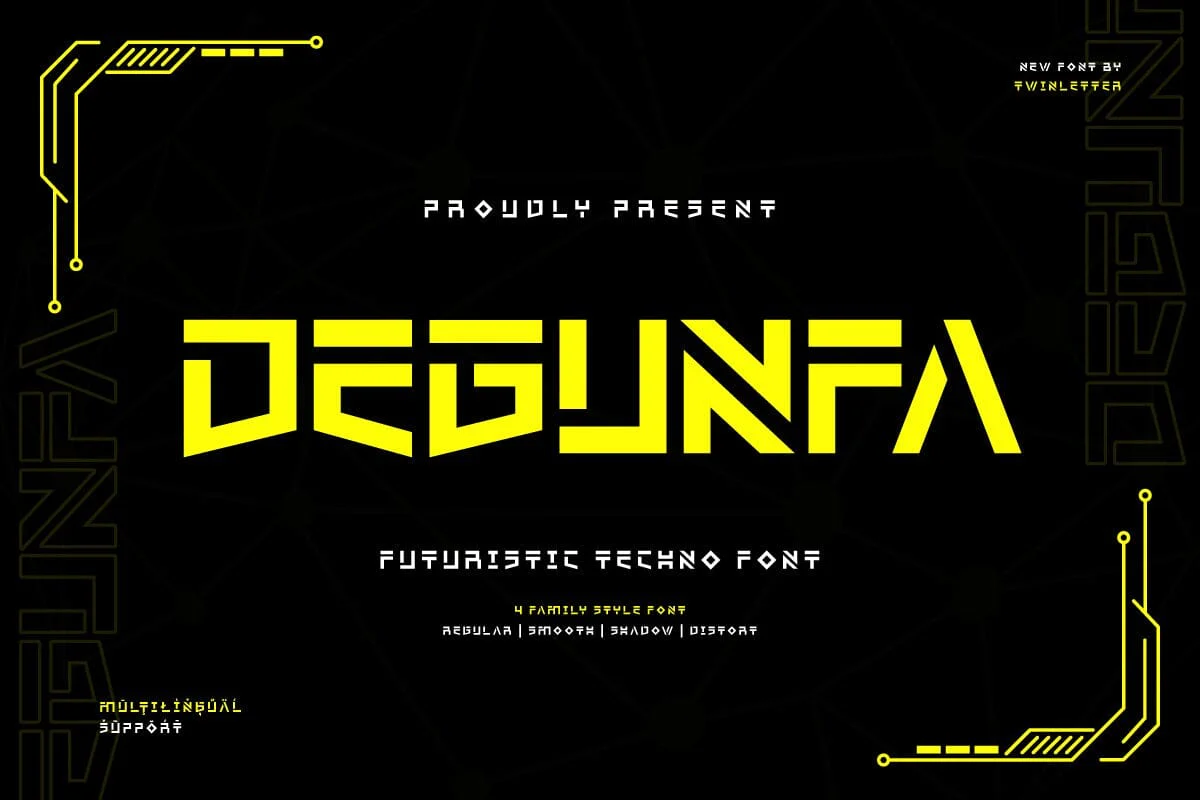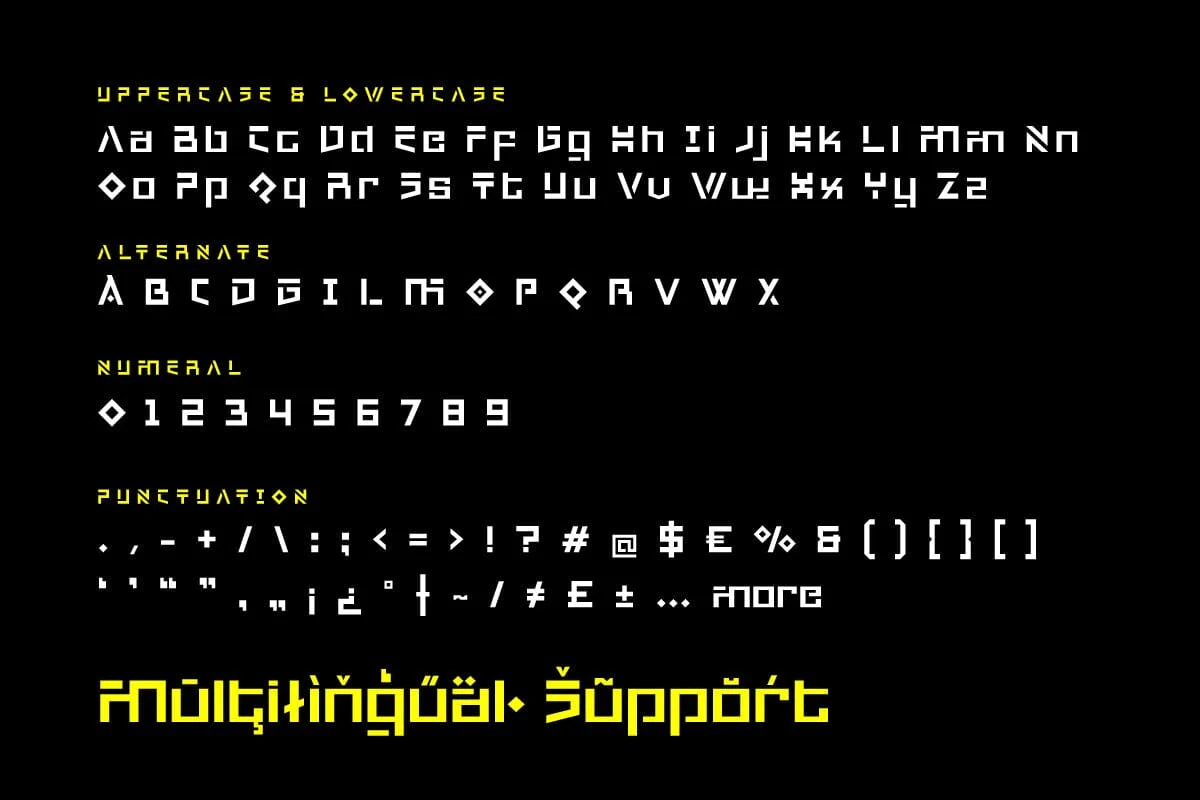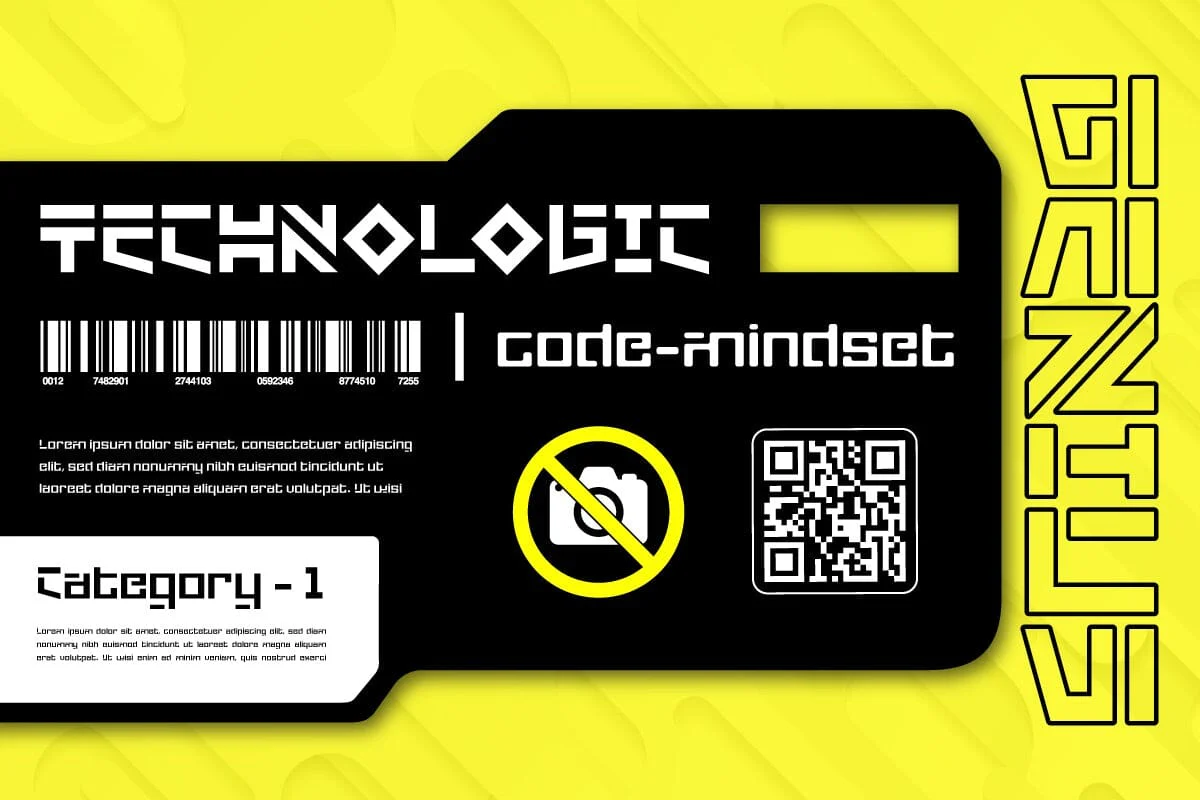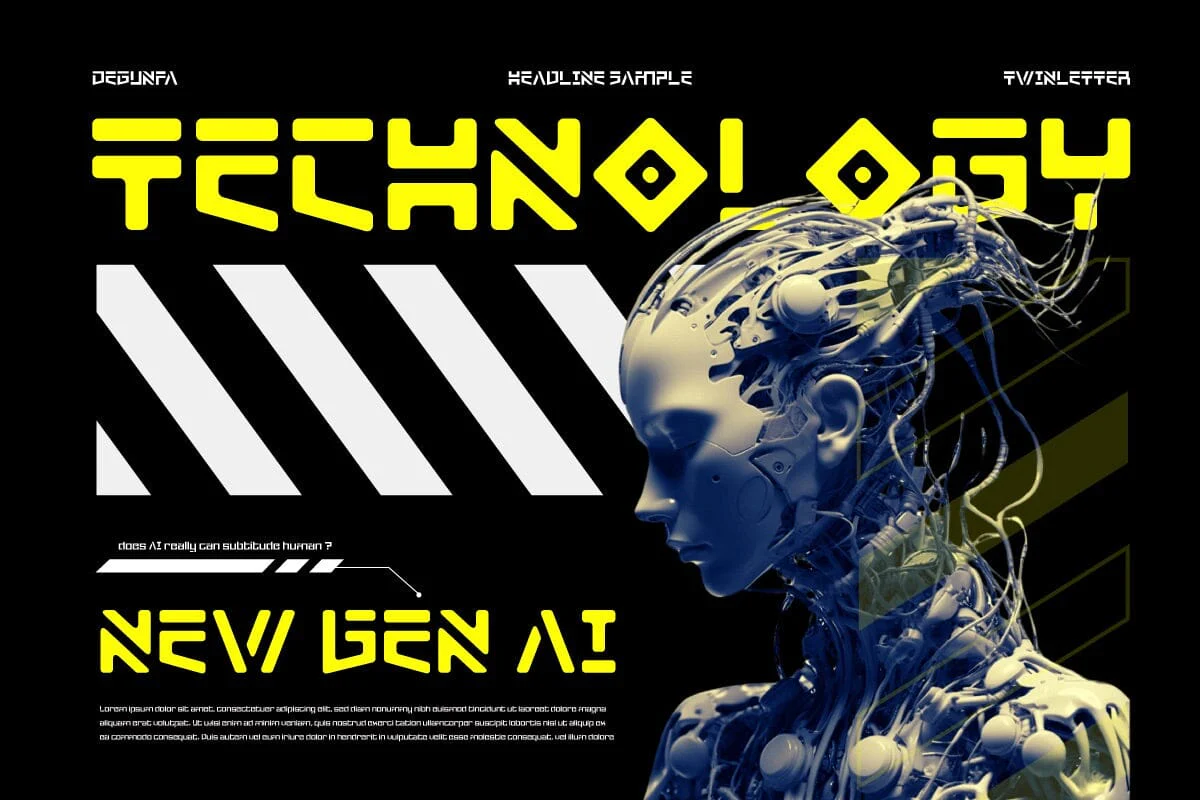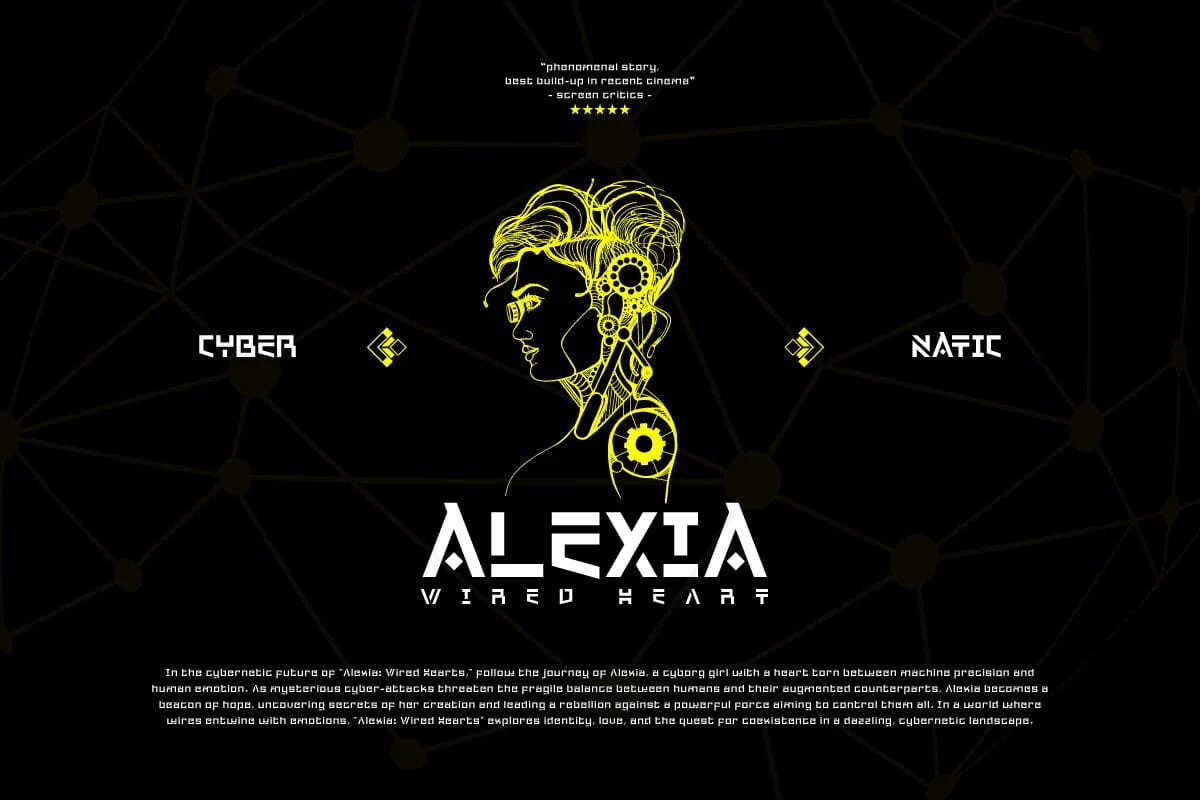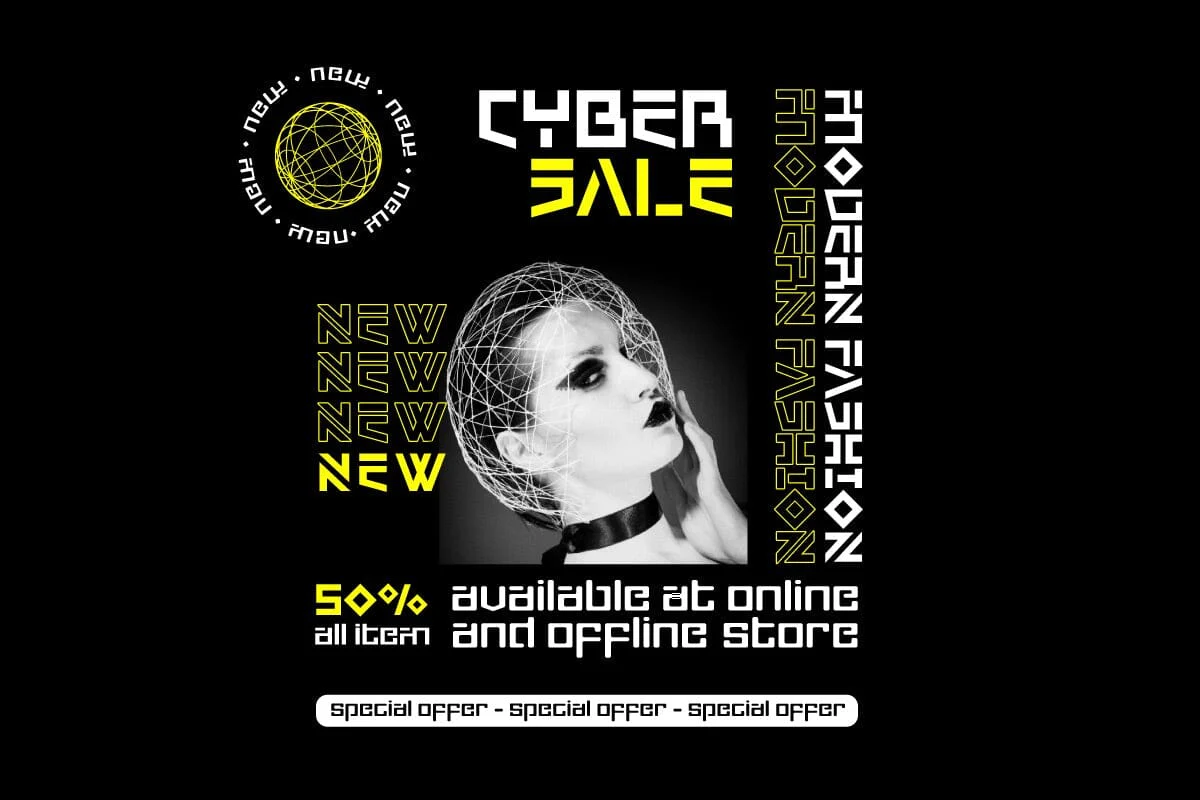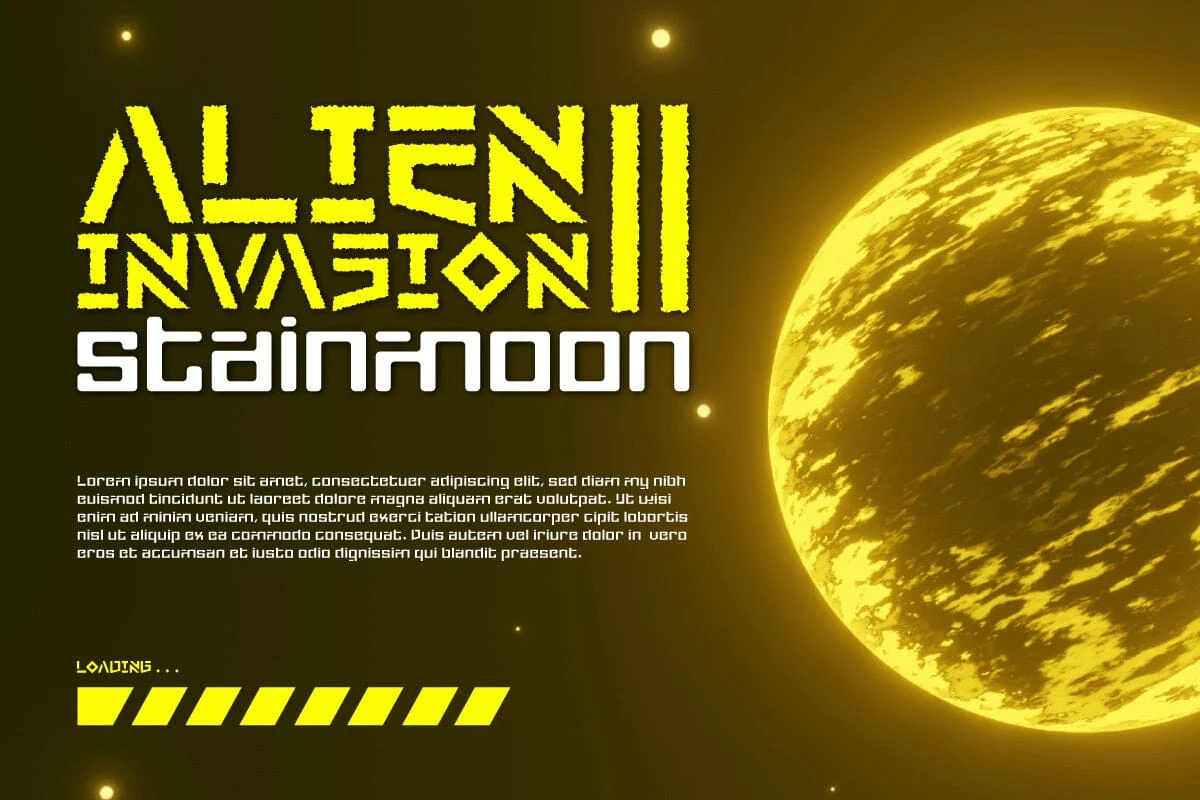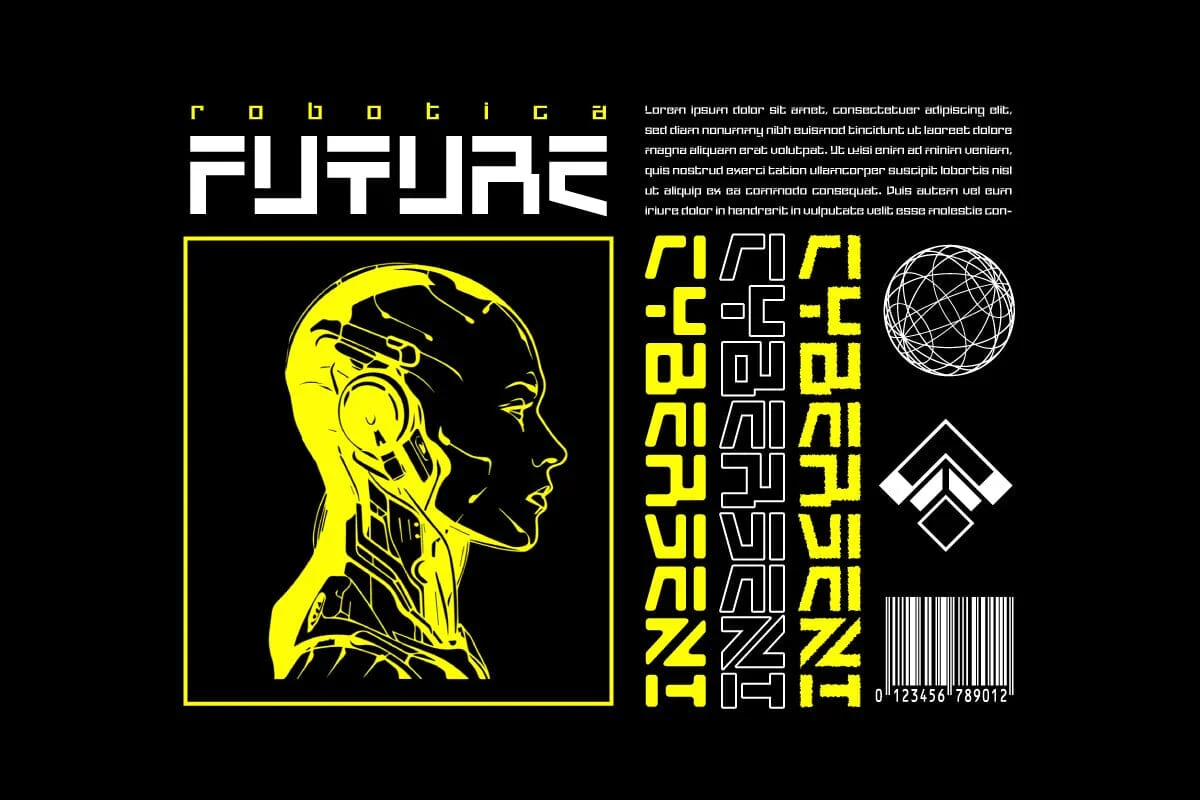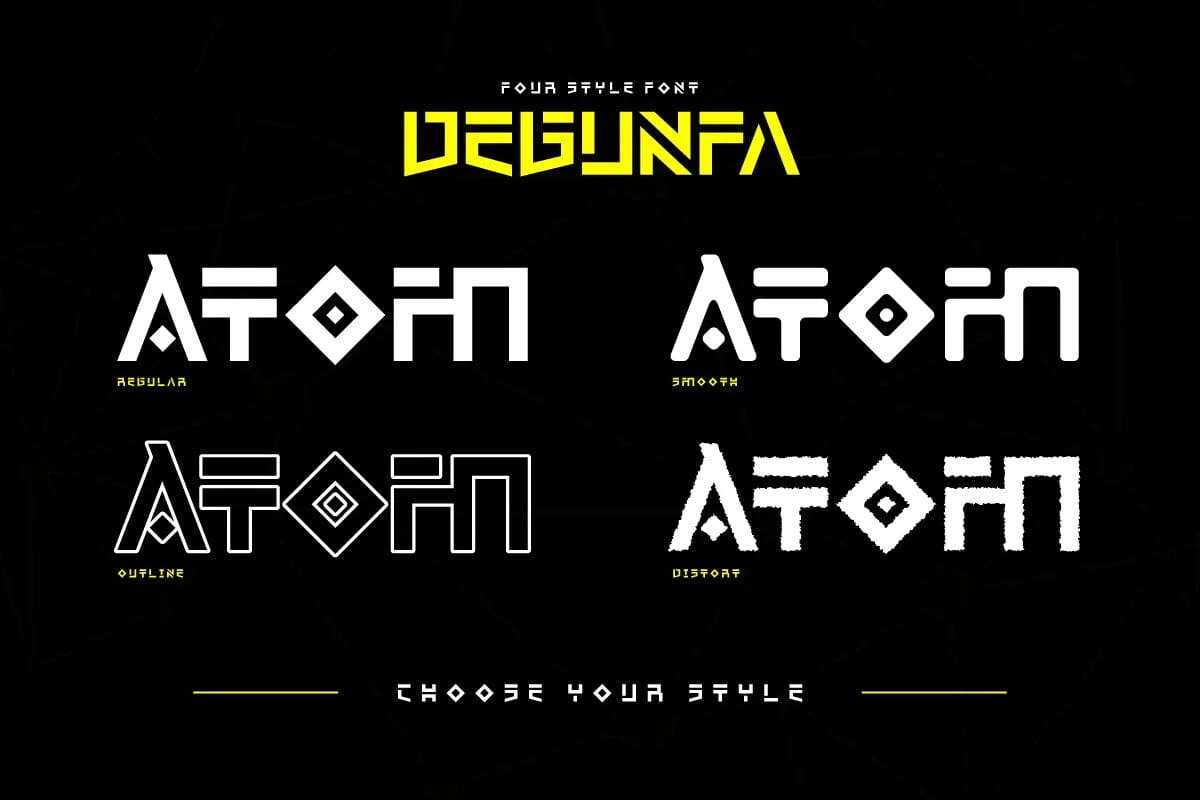
Degunfa - Futuristic Tech Font
Explore a new era in typography with Degunfa, a futuristic technology font that is leading the way forward. Designed to imbue sophistication and innovation, Degunfa brings a touch of the future to your design with modern lines and cutting-edge technological elements. Each Degunfa letter creates a futuristic and energetic visual, reflecting the speed of today's technological developments. With sophisticated details and dynamic design, this font provides endless possibilities for a variety of design projects, from technology brand identities to modern website layouts. Degunfa's strength lies in its ability to visualize technology concepts with clarity and appeal. From product presentations to graphic design projects that require a futuristic touch, Degunfa is a compelling choice for embracing visual change. With Degunfa, dare to be different and give your designs a future feel. Bring a touch of innovative technology and let Degunfa be the key to opening the door to a modern and revolutionary design experience. Whatโs Included: - File font OTF, TTF, WOFF, WOFF2, CSS, HTML - All glyphs and variation - We highly recommend using a program that supports OpenType features and Glyphs panels like many Adobe apps and Corel Draw so that you can see and access all Glyph variations. - PUA Encoded Characters โ Fully accessible without additional design software. - Fonts include Multilingual support